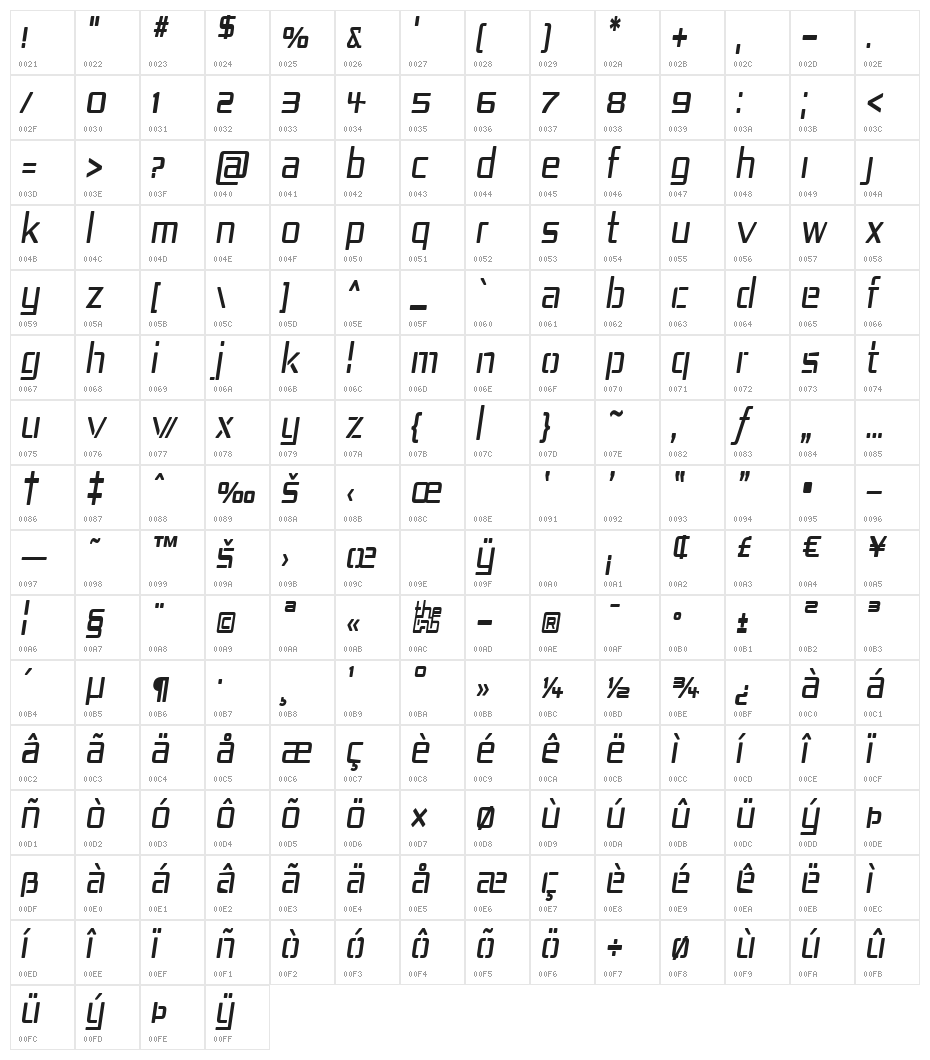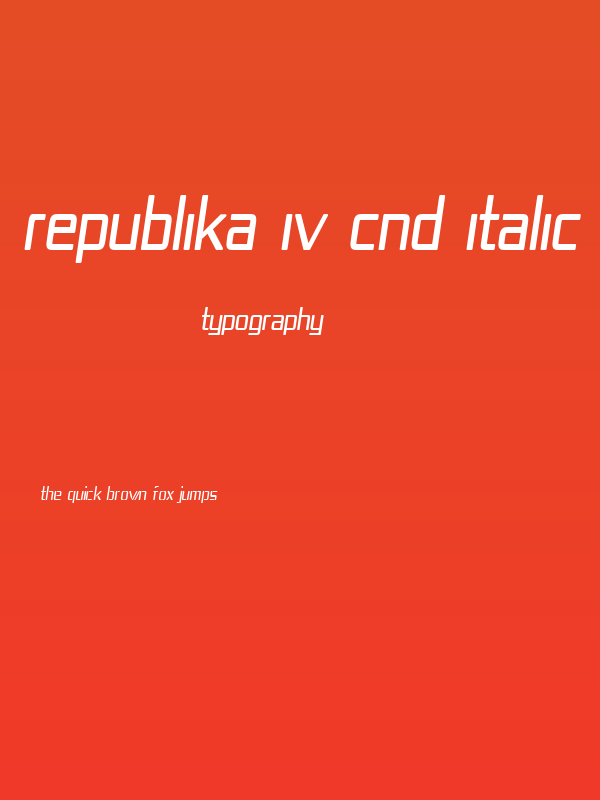
Republika IV Cnd Italic Font
Republika IV Cnd Italic Description
This font features a modern, sleek design with a condensed and italicized style. The characters are uniformly slanted, giving a dynamic and forward-moving appearance. The strokes are consistent in thickness, providing a medium contrast that enhances readability while maintaining a stylish look. The font's geometric shapes and clean lines make it suitable for contemporary design projects. The character spacing is tight, which contributes to its compact and efficient use of space. This font is ideal for projects that require a modern and professional aesthetic.
| Use Case | Headlines, Logos, Digital Media |
| Proposed Projects | Ideal for branding, advertising, and digital media projects that require a modern and sleek appearance. |